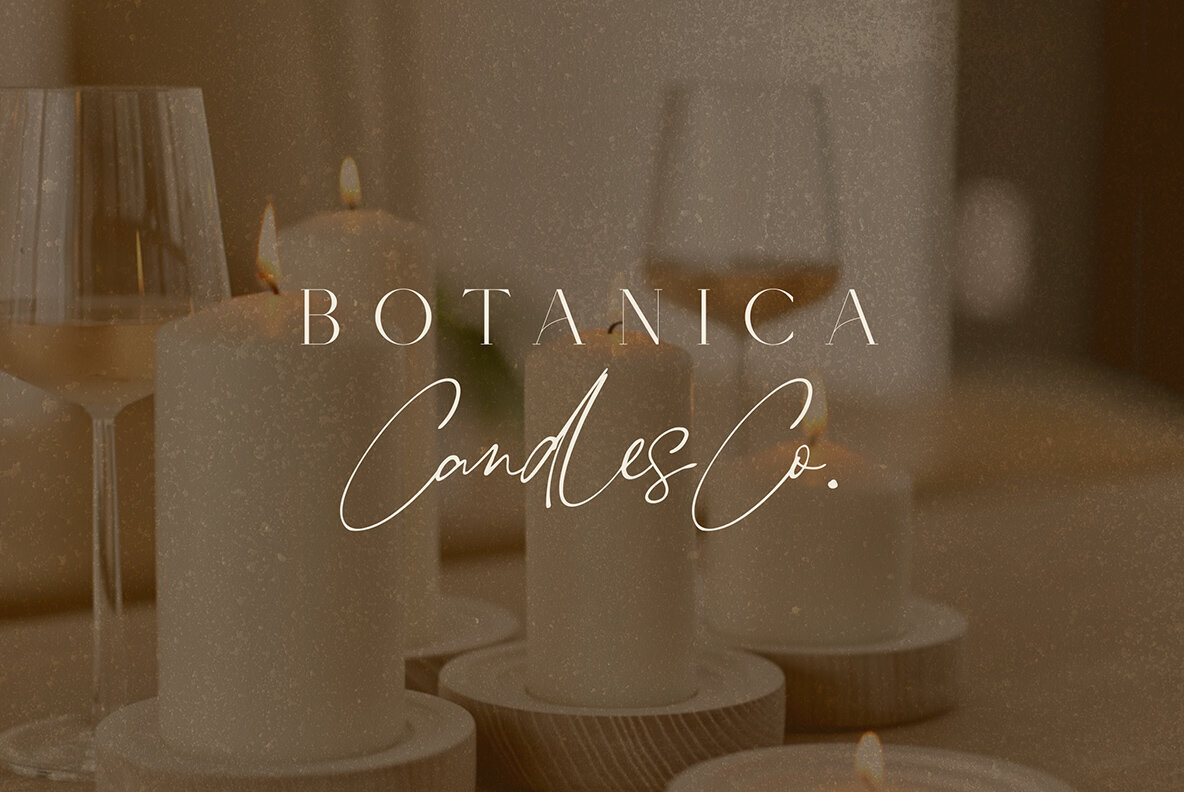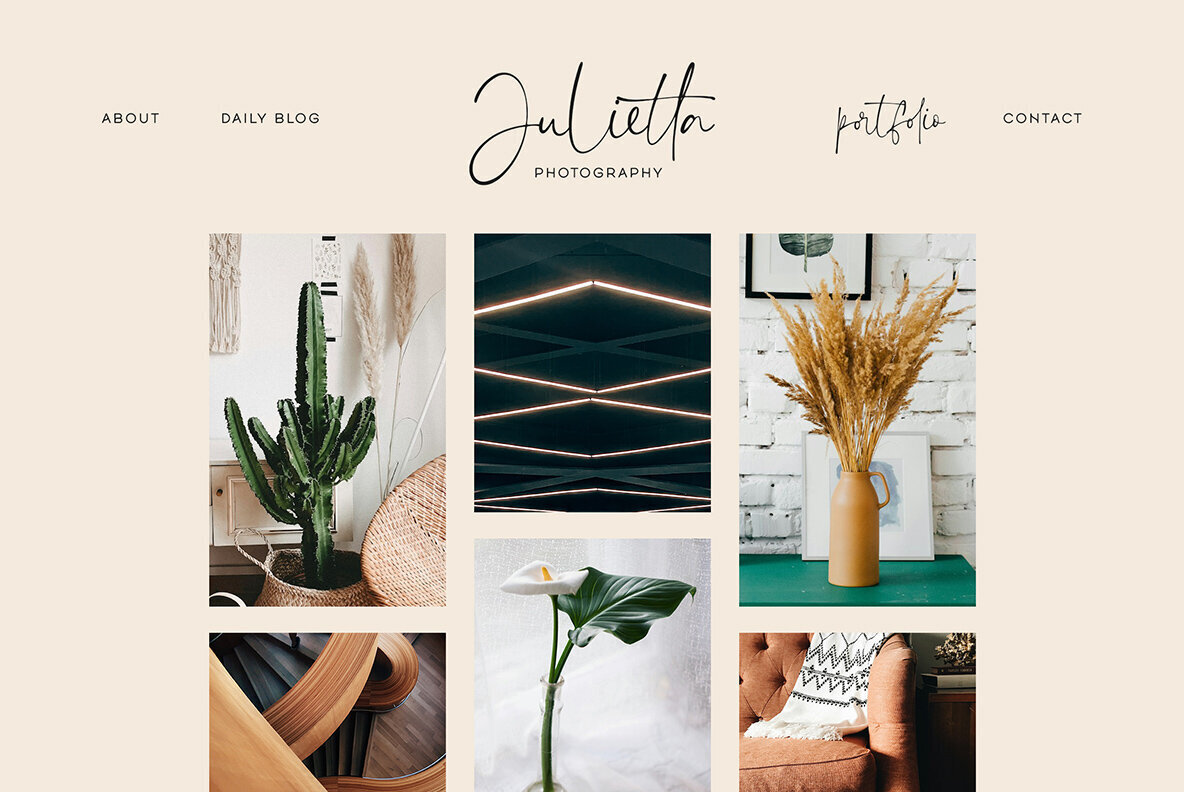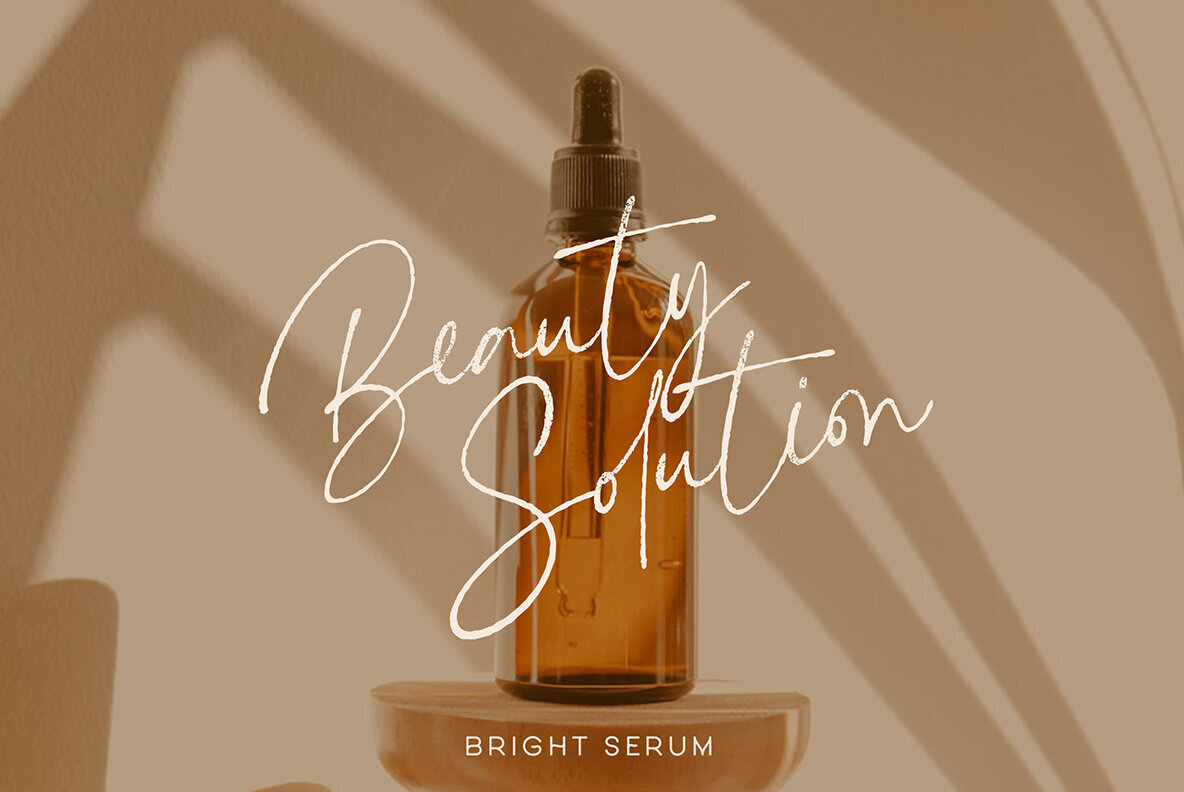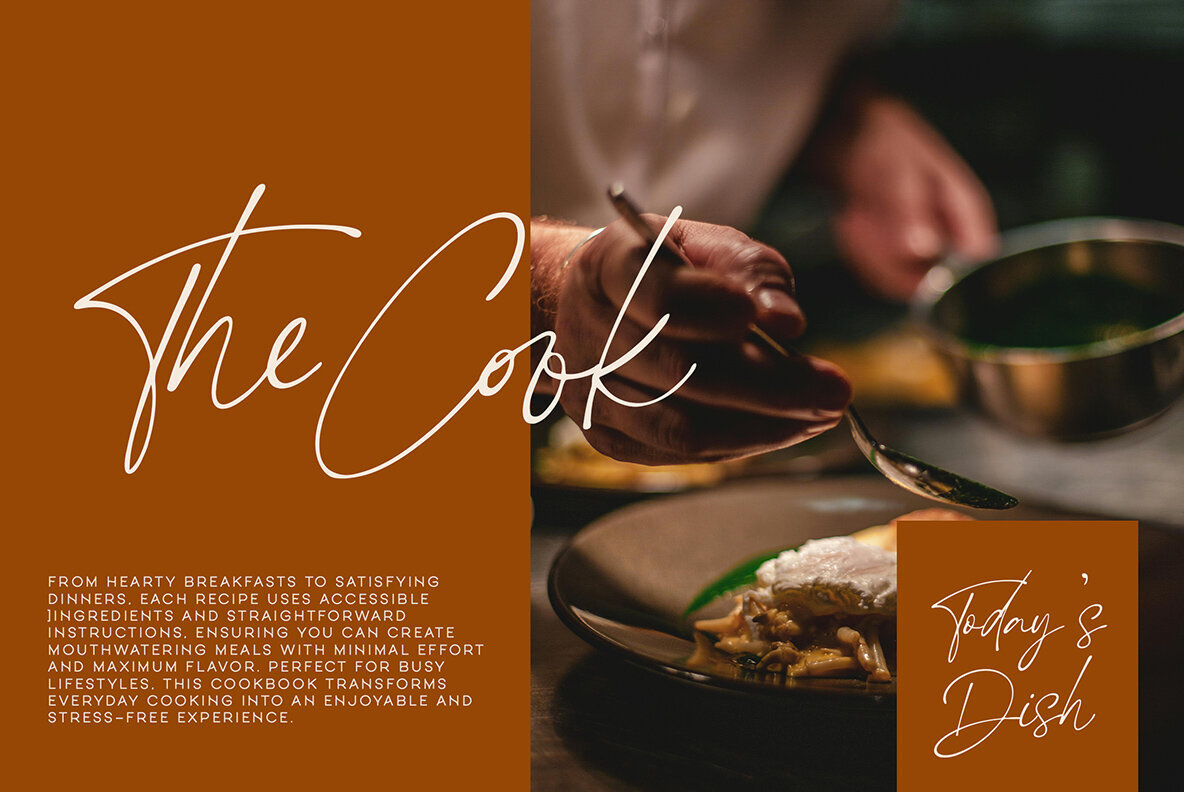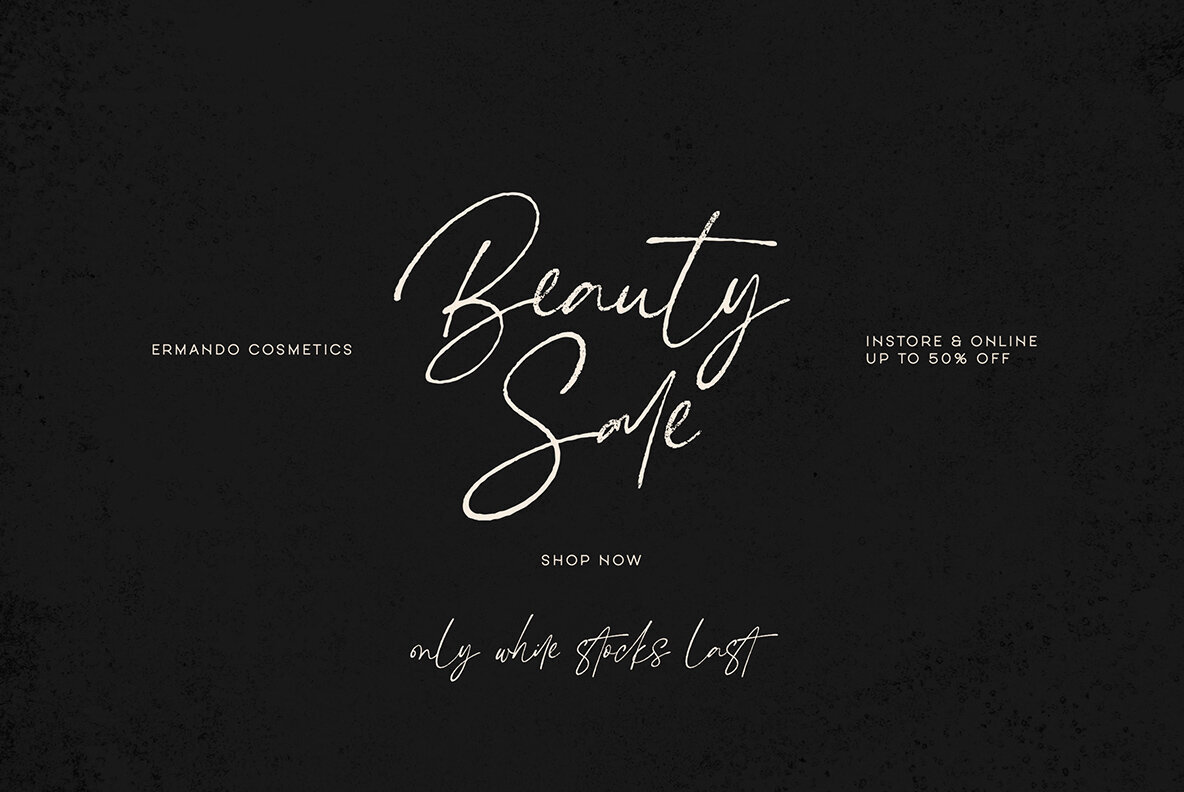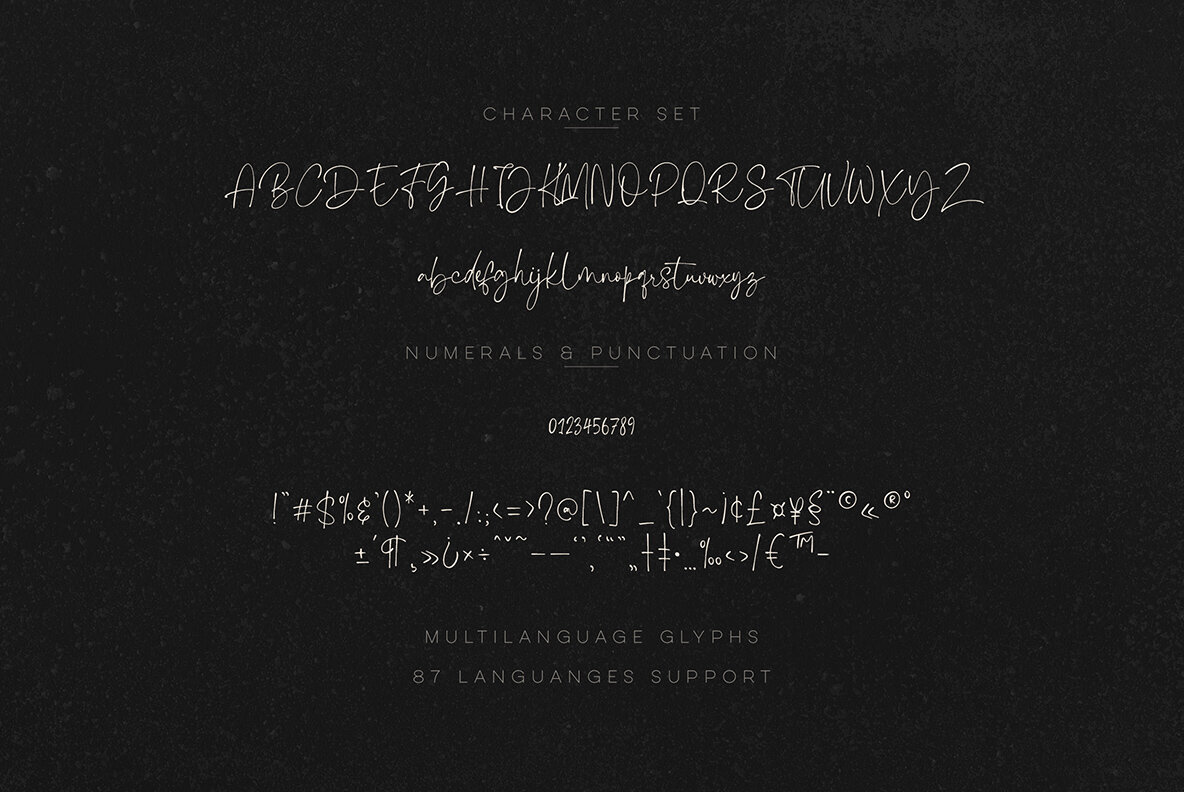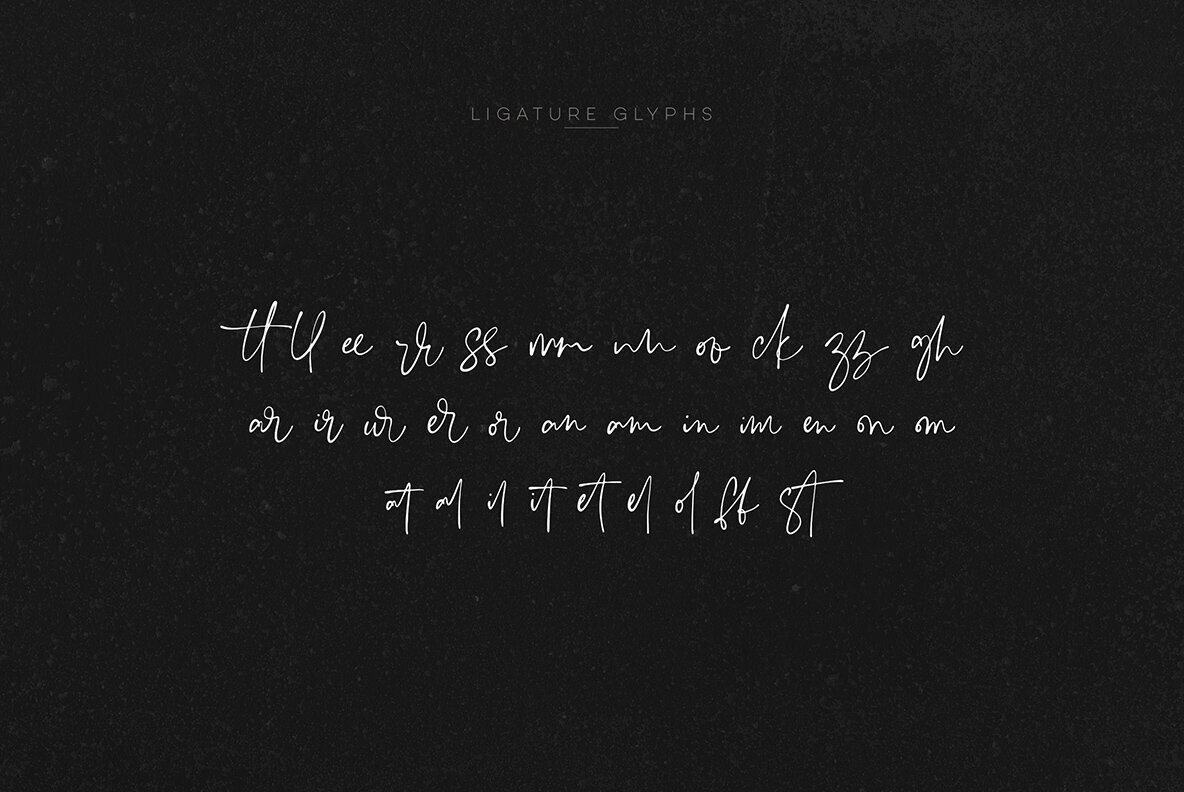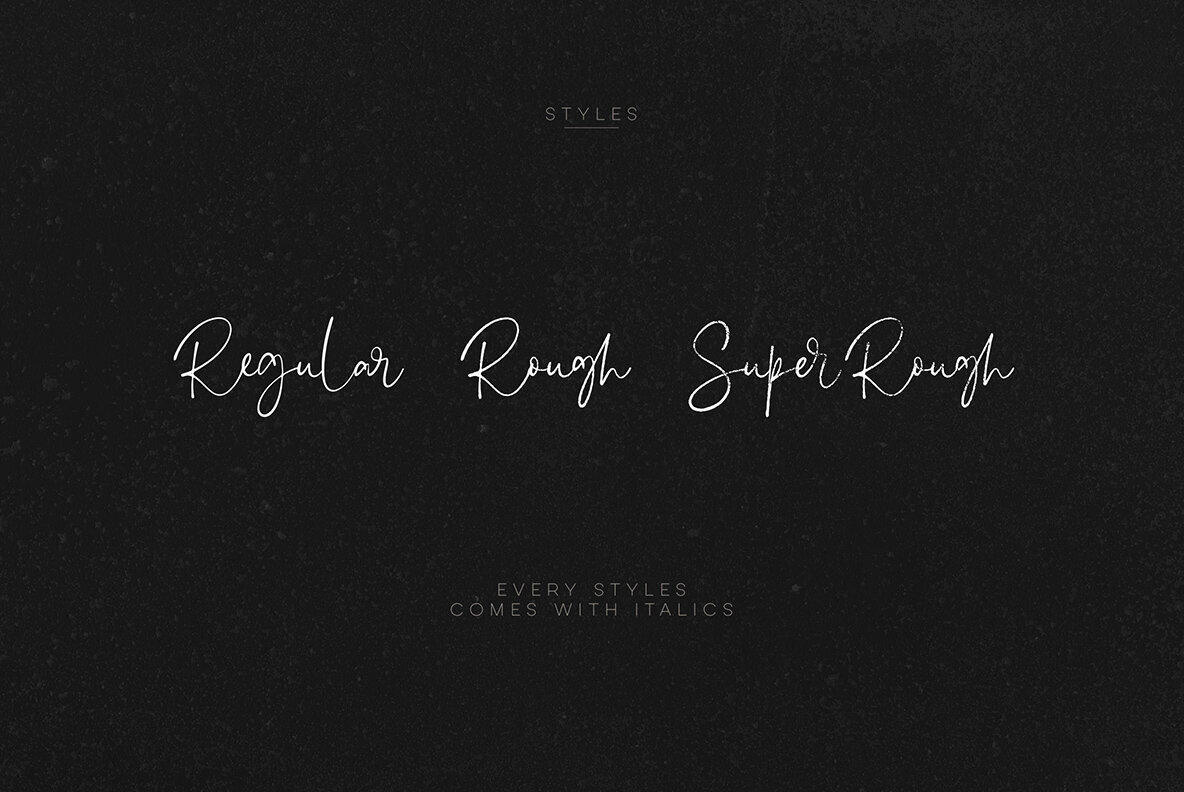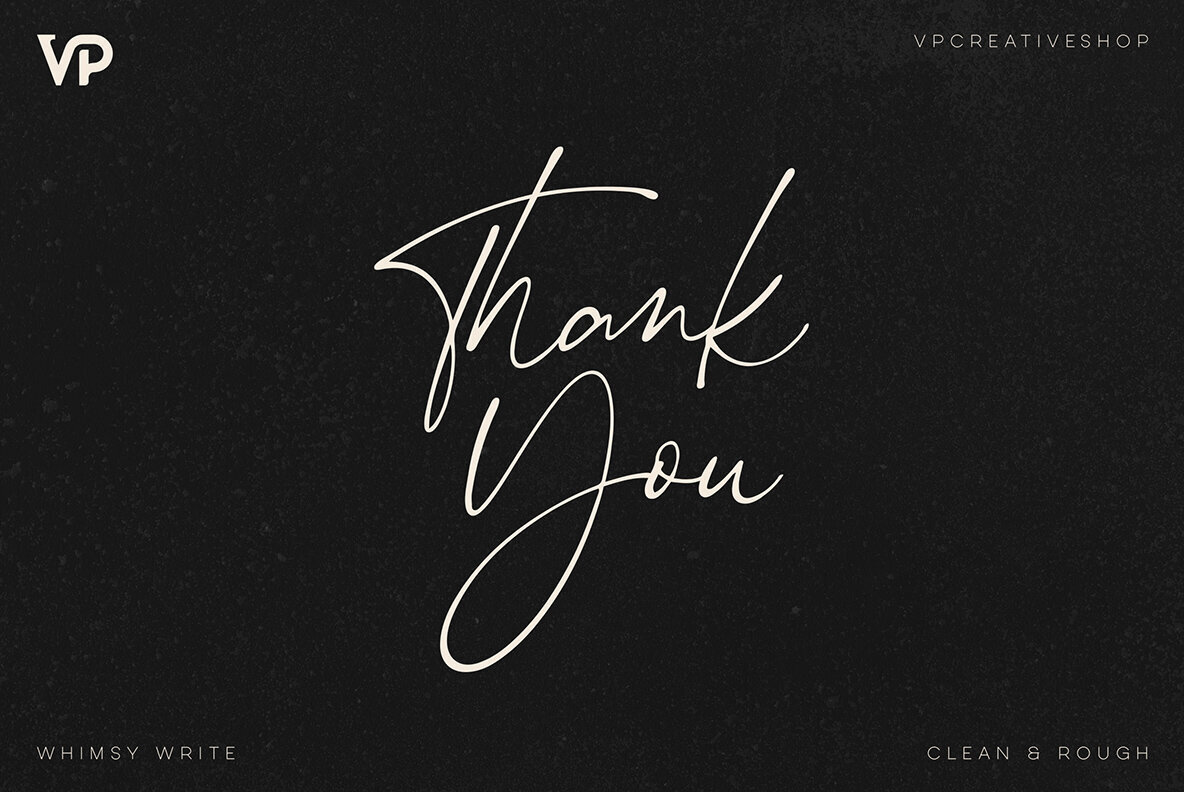
Whimsy Write Font
Whimsy Write is a versatile natural handwriting script designed to support an impressive 87 languages, catering to the needs of designers, typographers, and creatives. It comes in clean, rough, and super rough versions, each accompanied by an italic option, providing ample flexibility for any project. Whether adding a personal touch to a note, crafting a creative poster, or working on a multilingual document, Whimsy Write's authentic handwriting style ensures a unique and impactful result.
This handwritten script is perfect for a variety of applications, from personal letters to professional design projects. Its comprehensive language support includes Afrikaans, Czech, Danish, Finnish, German, Italian, Spanish, Turkish, and many more, making it ideal for global projects. Whimsy Write allows for seamless integration into diverse design needs, enhancing your work with its natural, handwritten appeal.